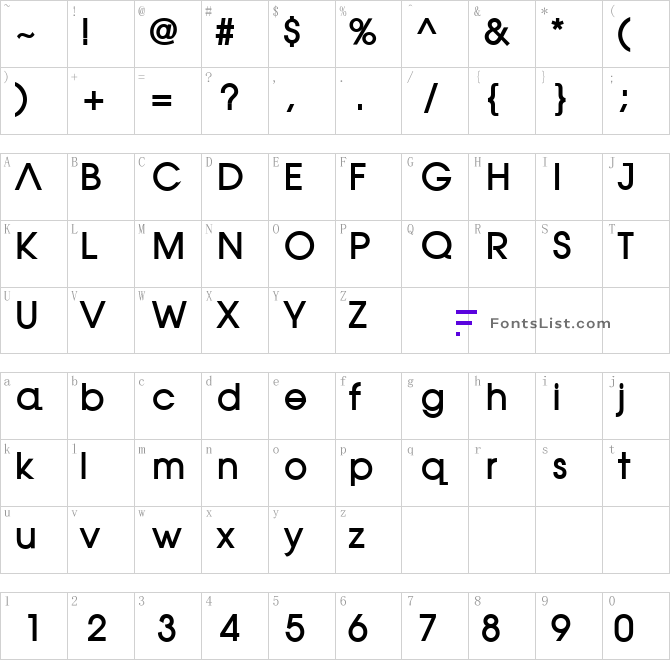
- Font Name:Aovel Cool
- Subfamily:authimie: Aovel Cool Bold: 2005
- Full Name:Aovel Cool Bold
- PostScript:AovelCool-Bold
Aovel-Cool-Bold.ttf is a very beautiful artistic font, Aovel-Cool-Bold.ttf is widely used in the design and printing of various books and pictures,Aovel-Cool-Bold.ttf has a strong visual impact,Aovel-Cool-Bold.ttf is a commonly used font in newspapers, magazines and books, and is used in posters, e-commerce Poster design, store design, logo design, font design and other fields.Aovel-Cool-Bold.